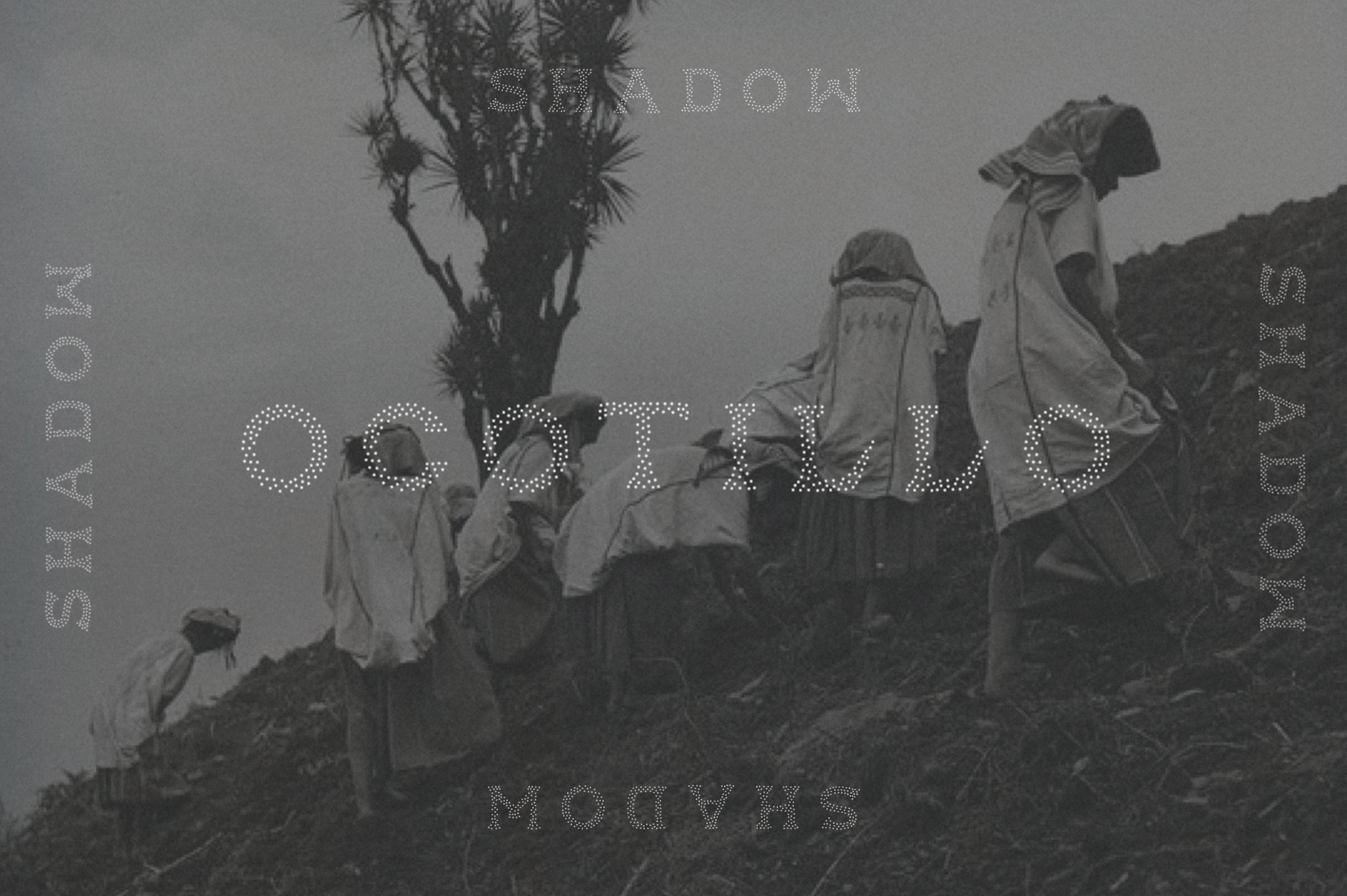
OCOTILLO SHADOW TYPEFACE
The 6th typeface from the studio draws its influence from the American Southwest and Mexico. Inspired by a slightly rougher take on traditional hand lettering and painted signs with strong tied to the harsh surrounding desert and its cacti. This version of the Ocotillo typeface represents a cast shadow of the original. It can be used to compliment Ocotillo or entirely on its own.